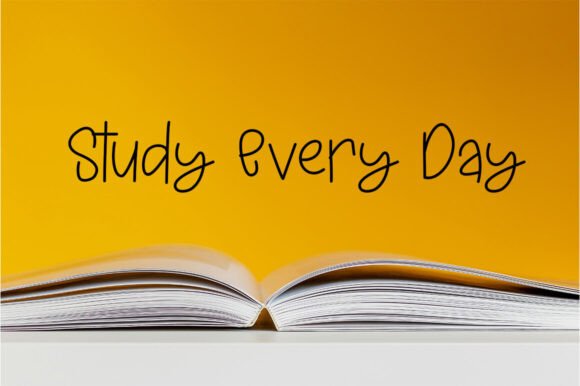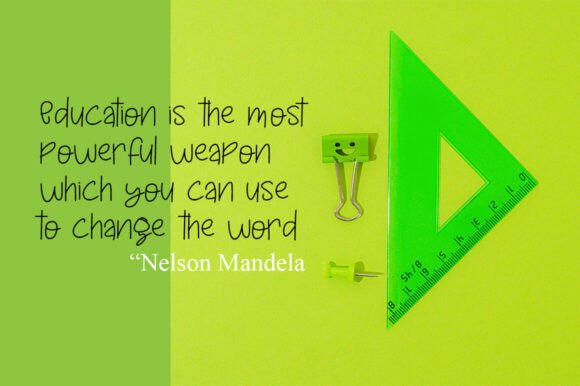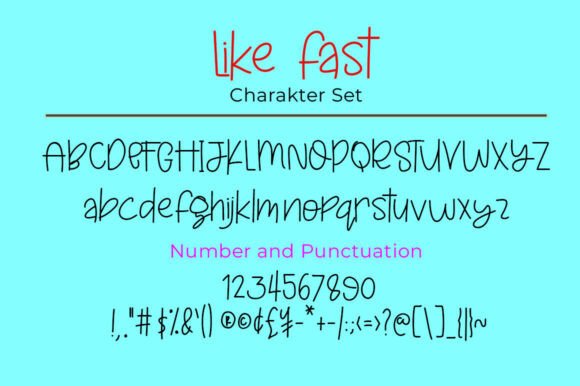
Introduction to Like Fast Font
Like fast is a playful handwritten font with a fun and casual vibe.
Its smooth, rounded strokes make it perfect for diaries, school notes, and creative projects With a friendly and cheerful feel, this font adds a touch of warmth and personality to every word.
Key Features of Like Fast Font
Why Choose Like Fast Font?